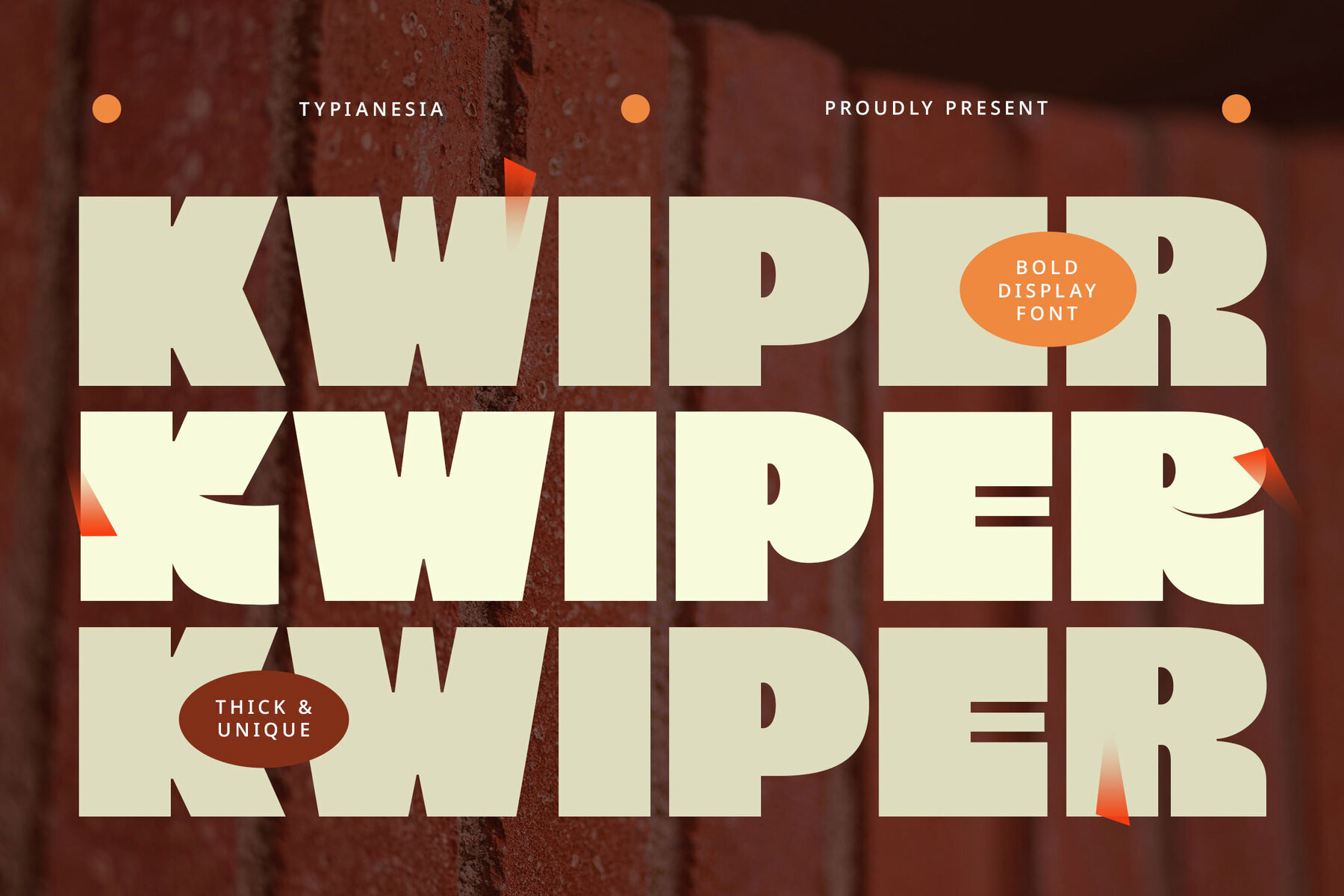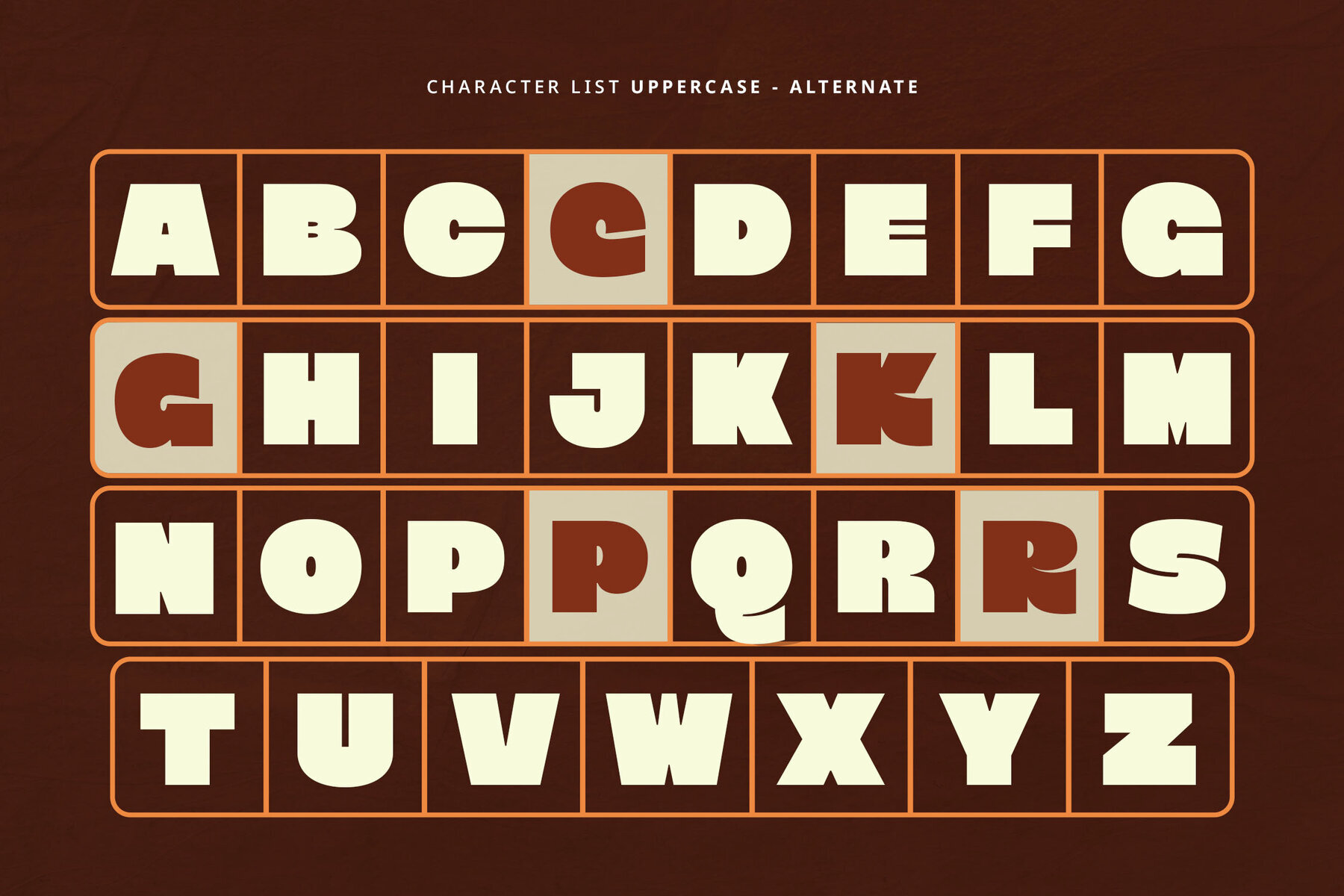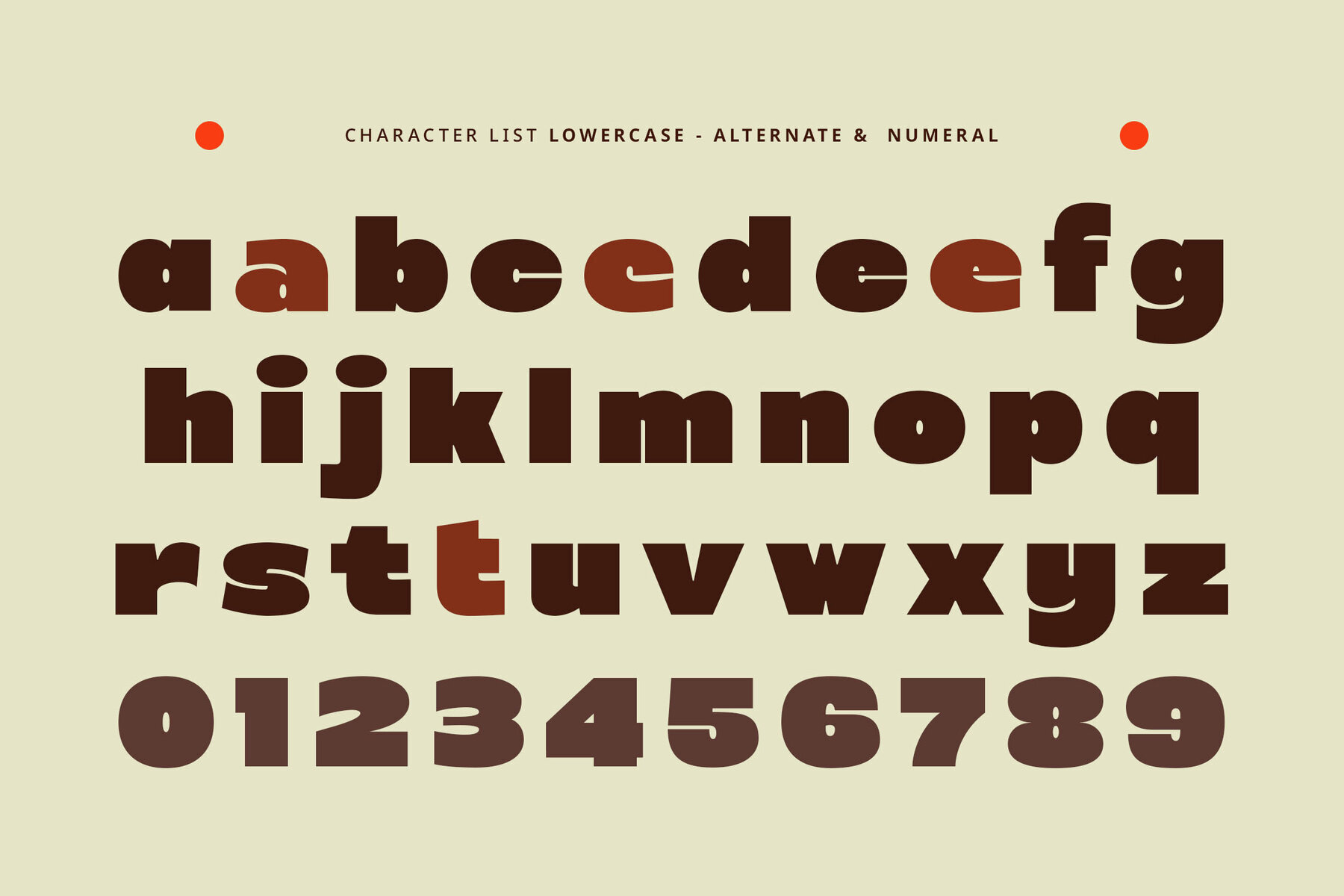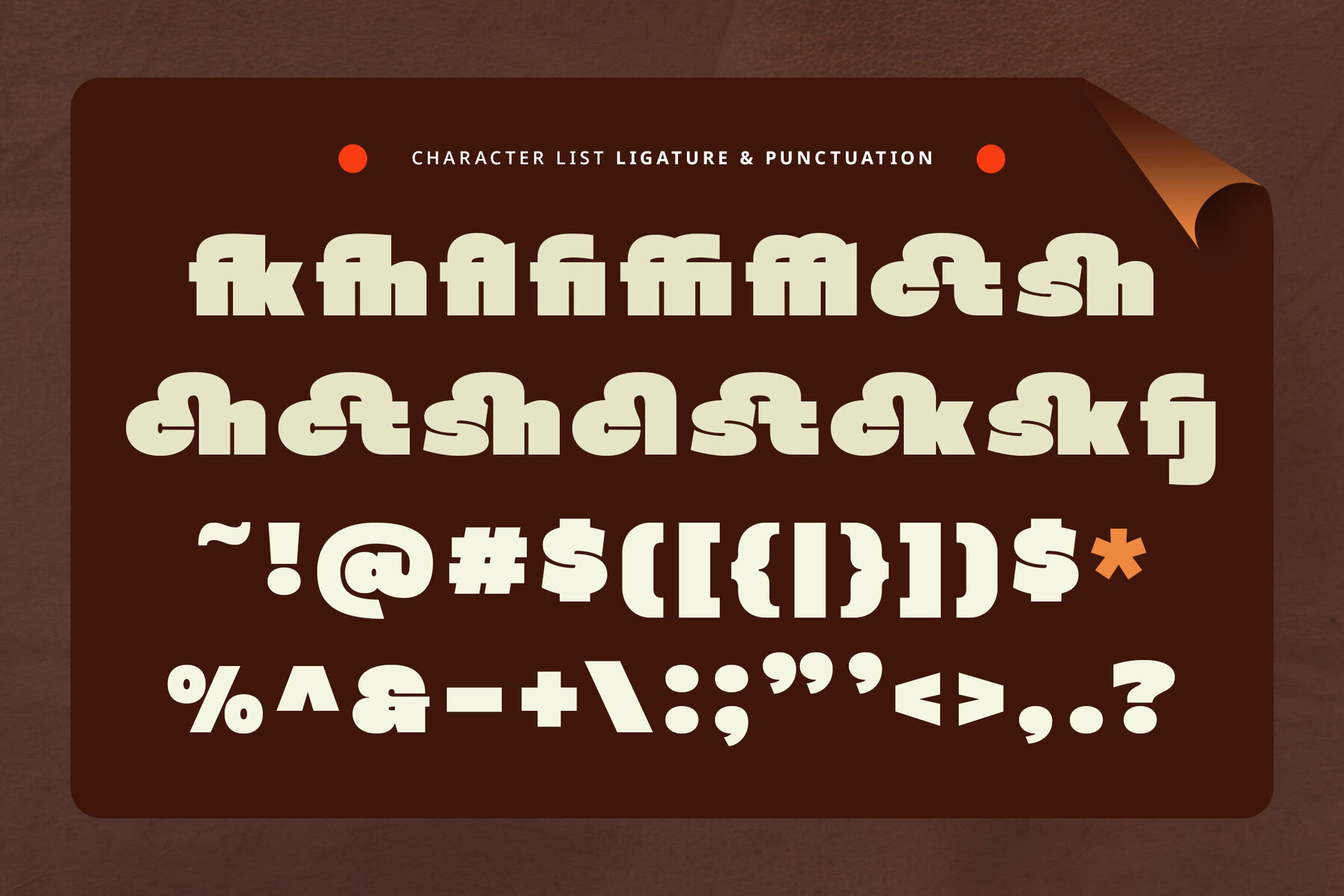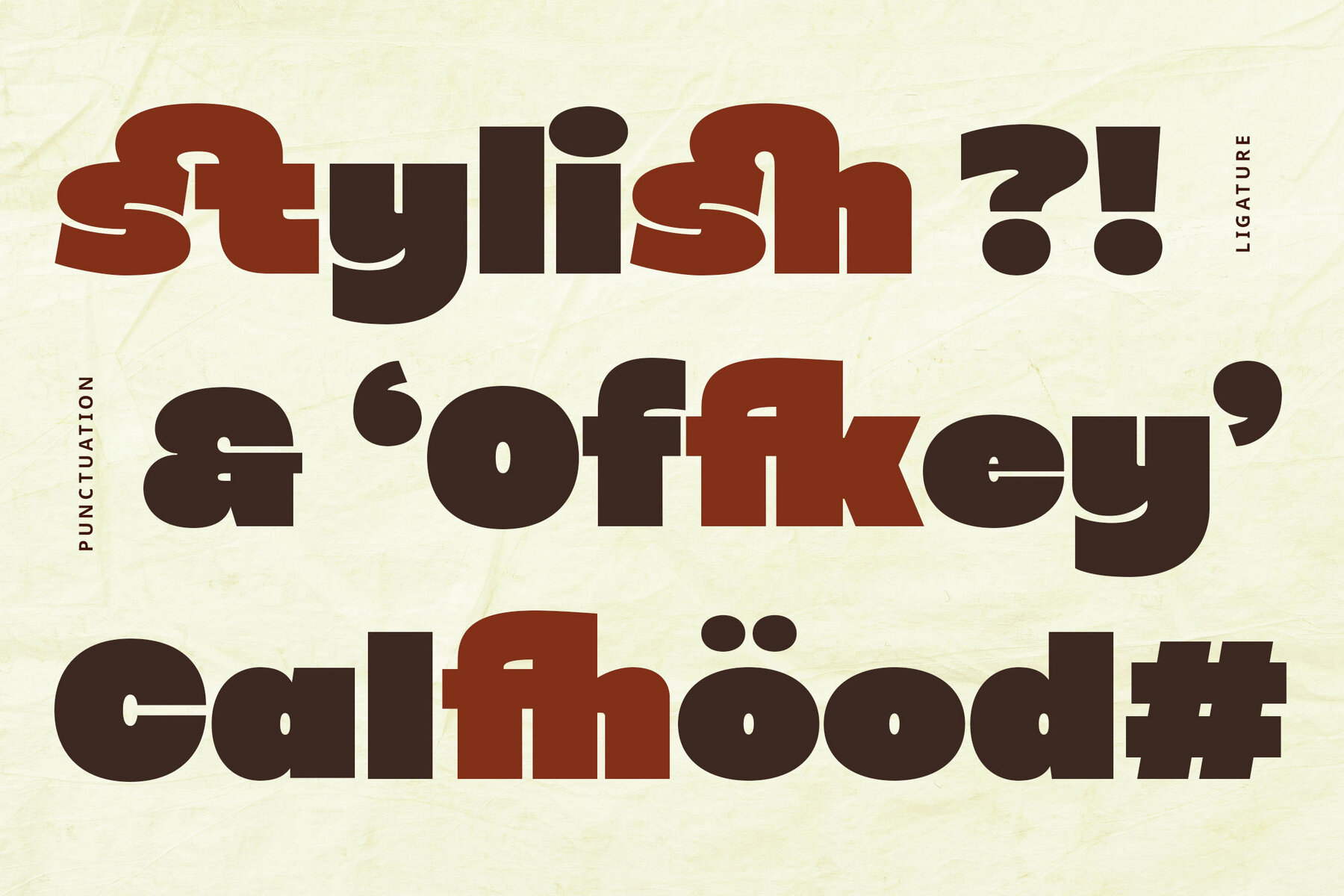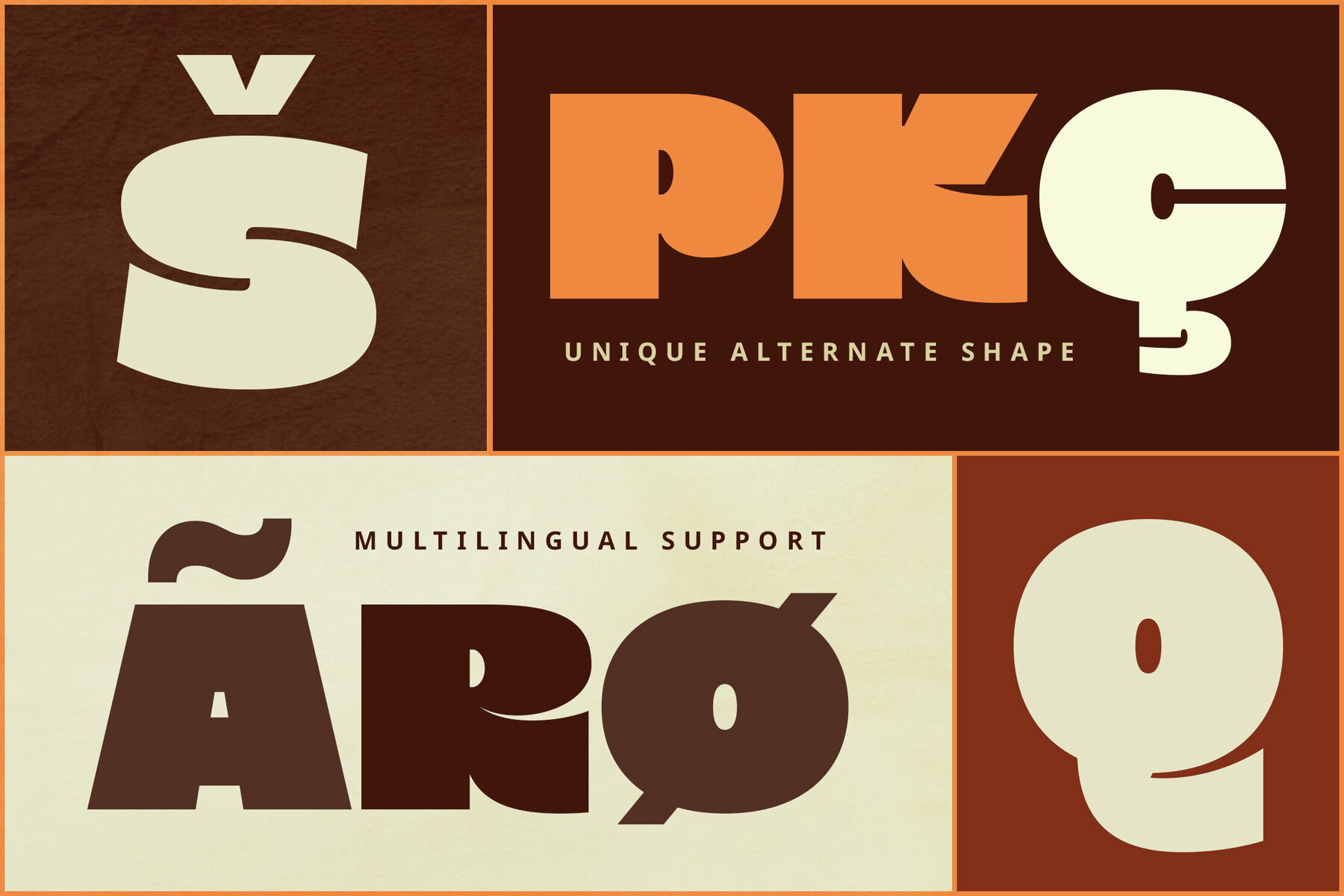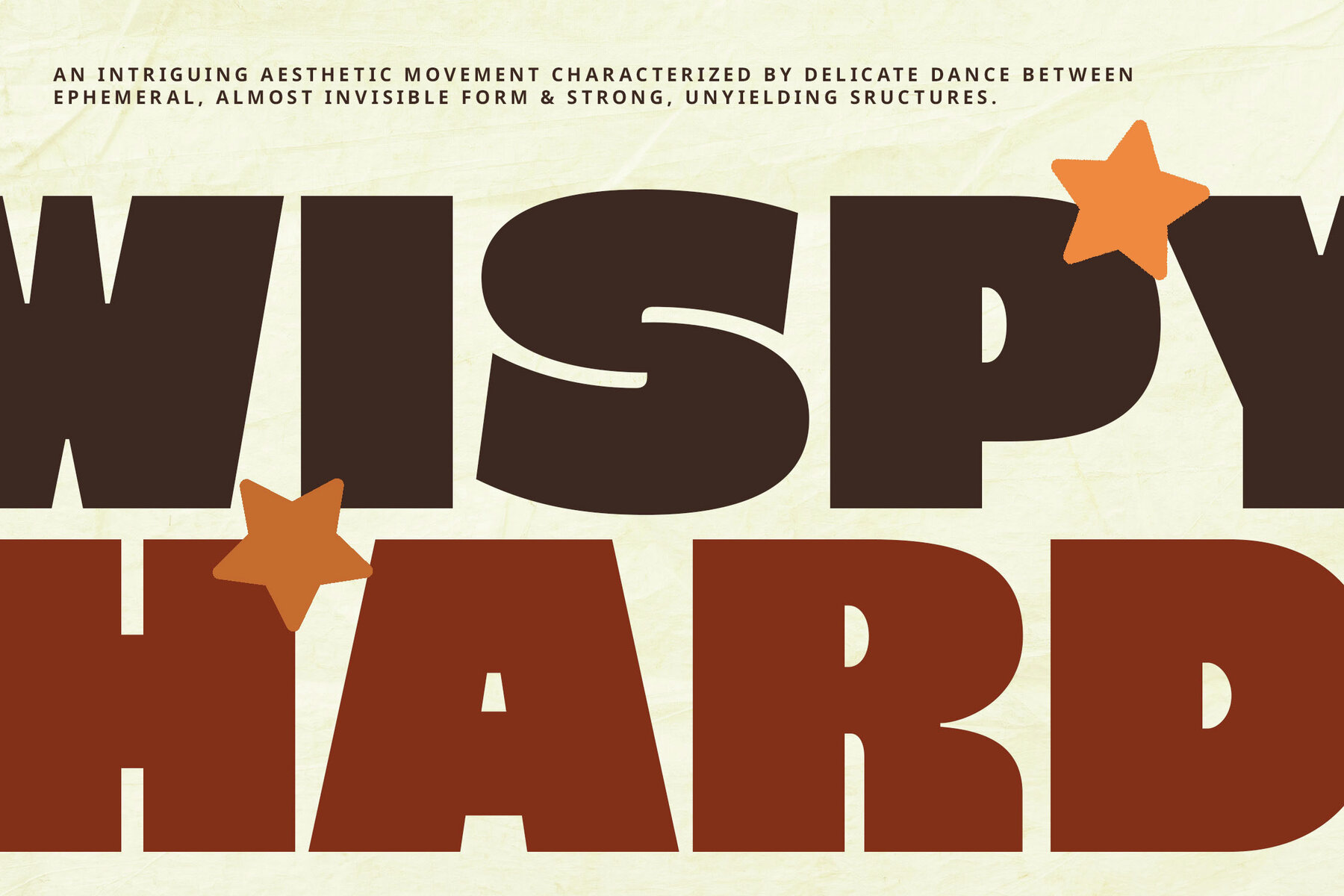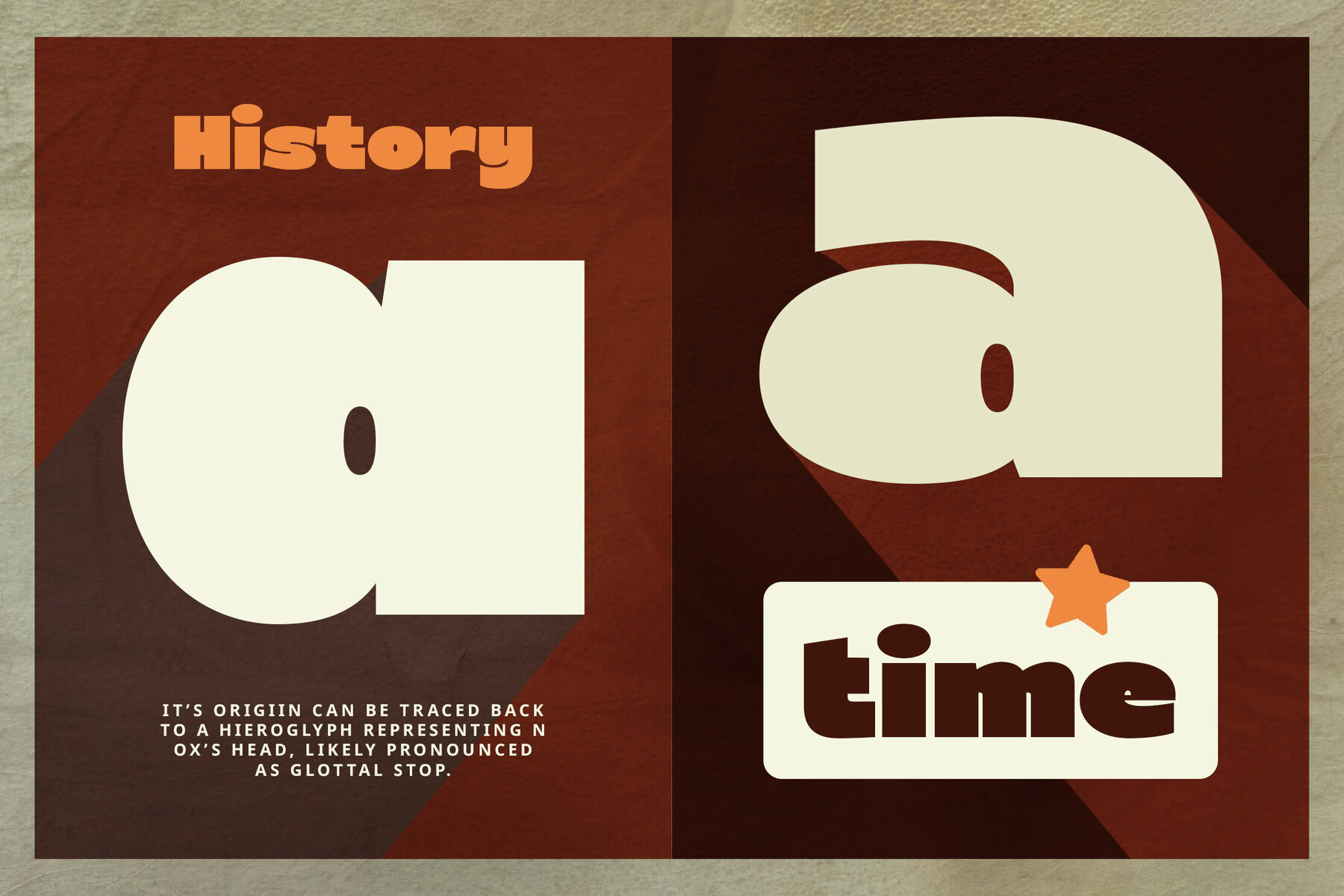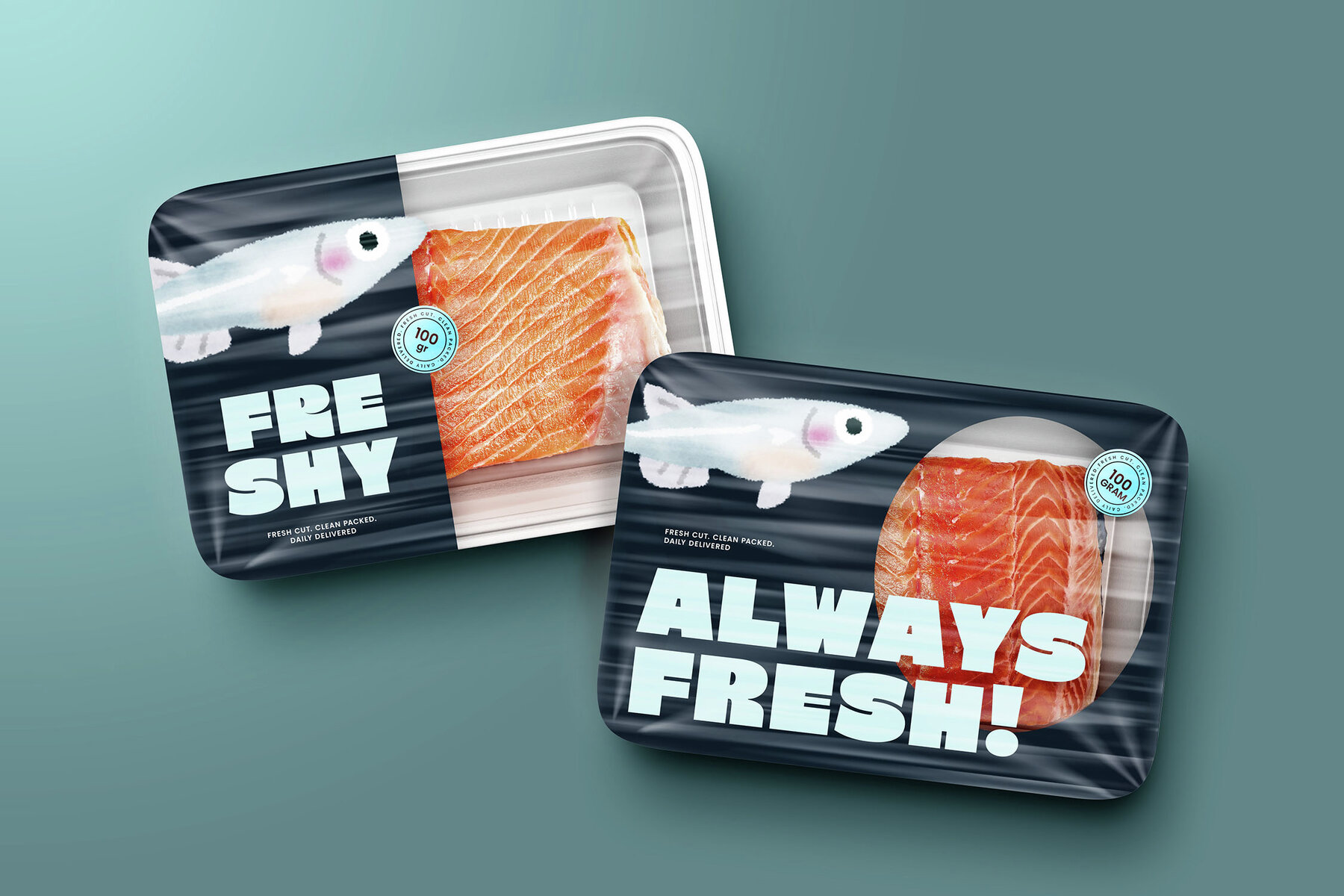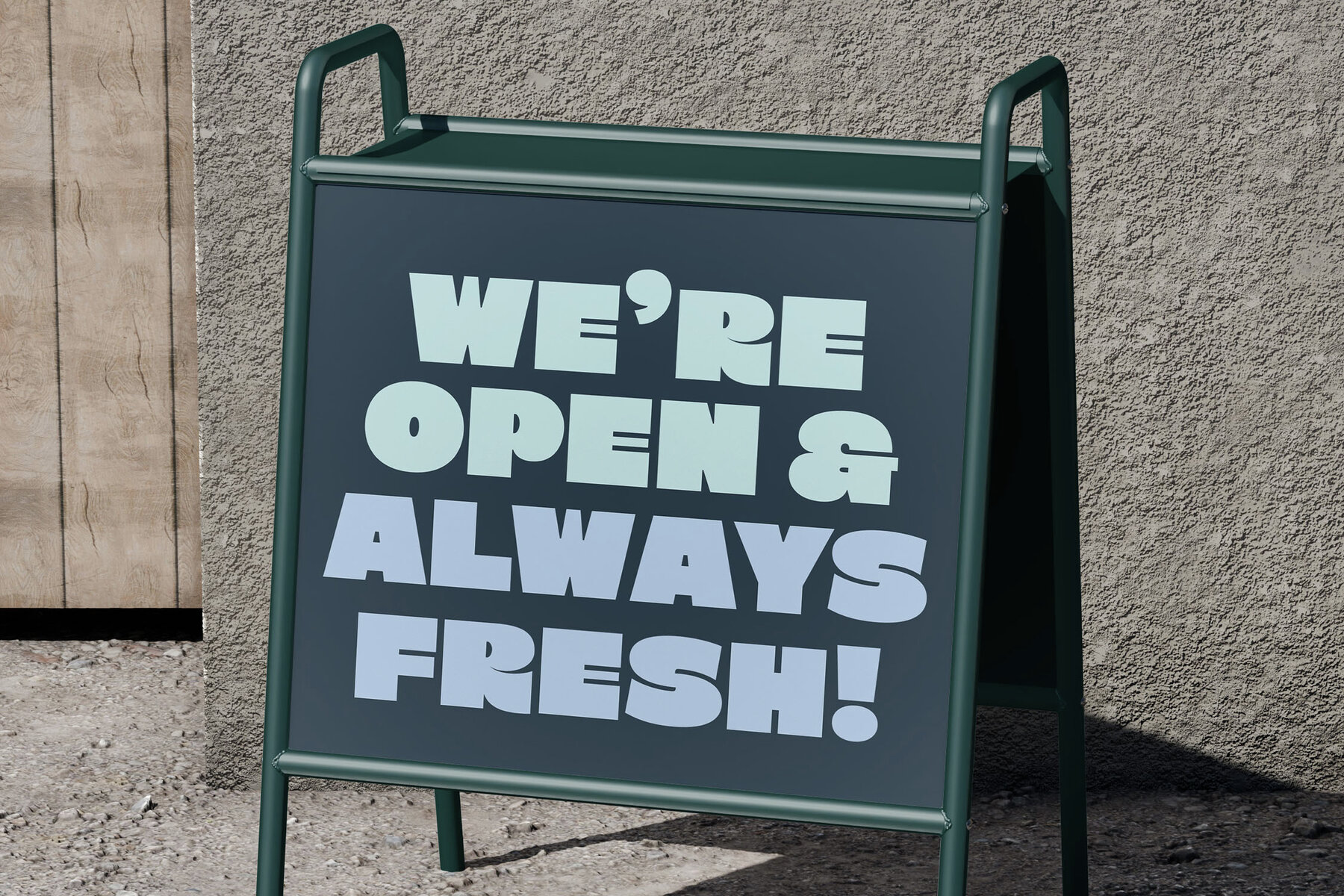
Kwiper Font
Kwiper Regular
Kwiper is a dynamic display font crafted to command attention and make a striking impact. Its bold, chunky design offers a retro-modern aesthetic that enhances diverse design projects. Perfect for logos, branding, headlines, posters, advertising, and product packaging, Kwiper ensures a compelling and memorable visual presence. With distinctive ligatures and extensive multilingual support, Kwiper empowers designers to create typography that's vibrant and full of personality. Whether you're crafting a logo, an advertisement, or any piece that demands notice, Kwiper provides the distinct character and energy needed to make your designs unforgettable.Kwiper: A Bold, Chunky Display Font